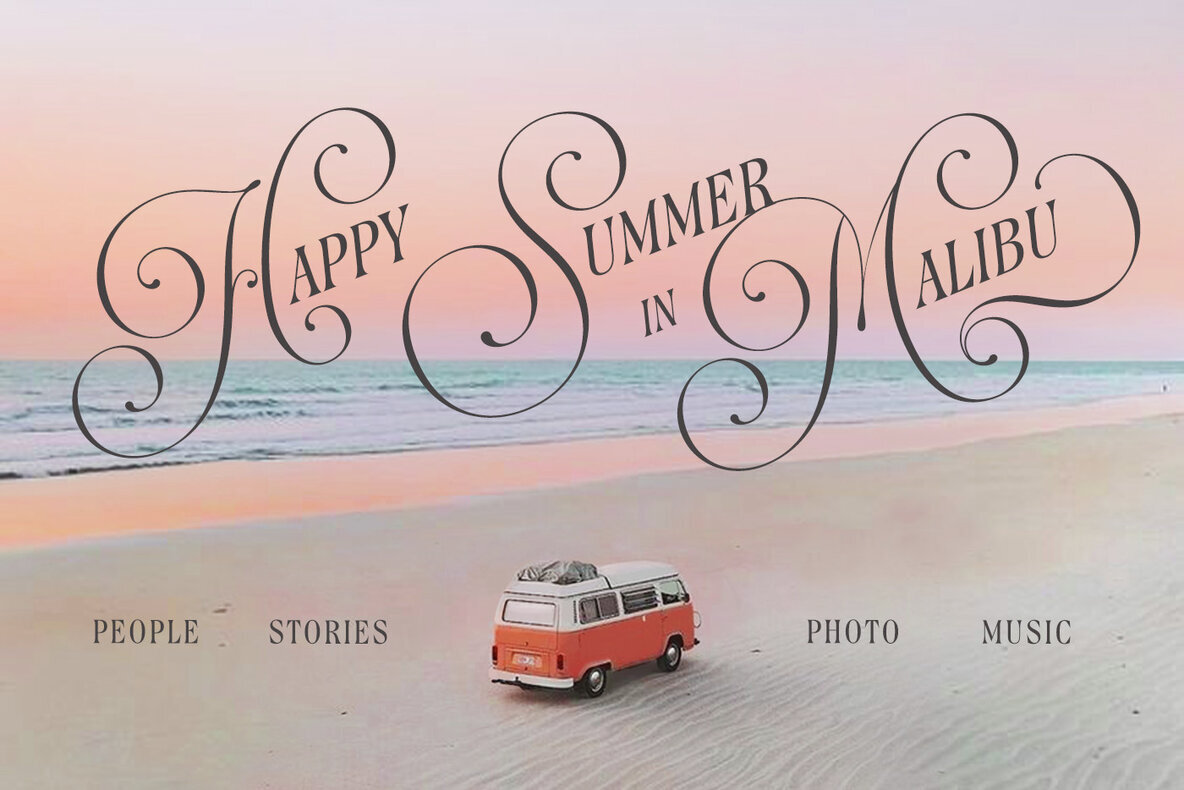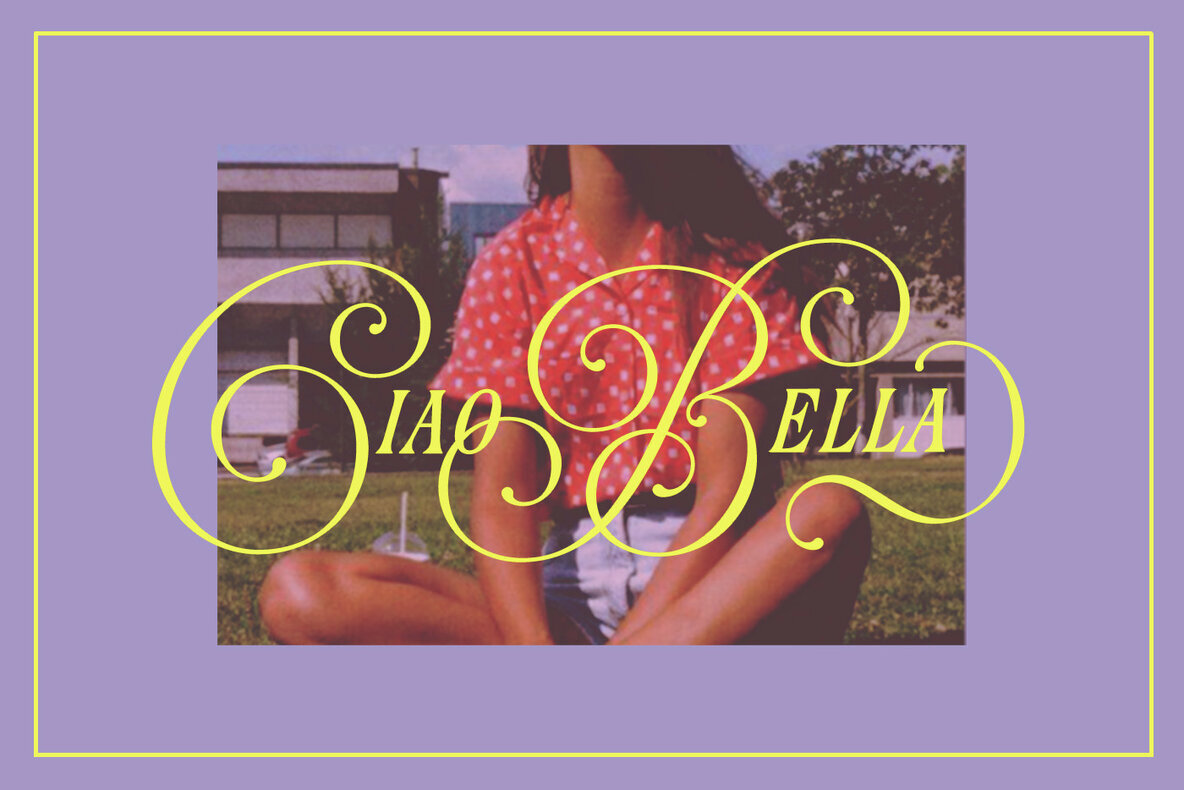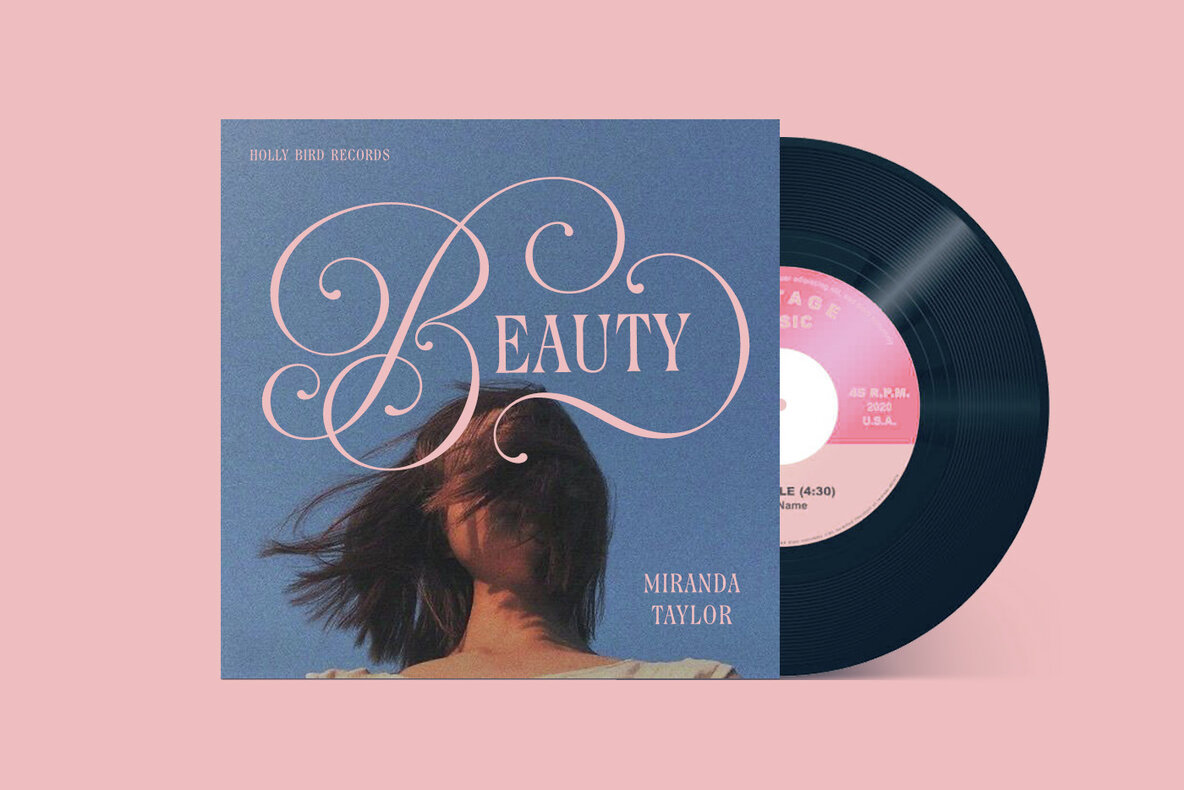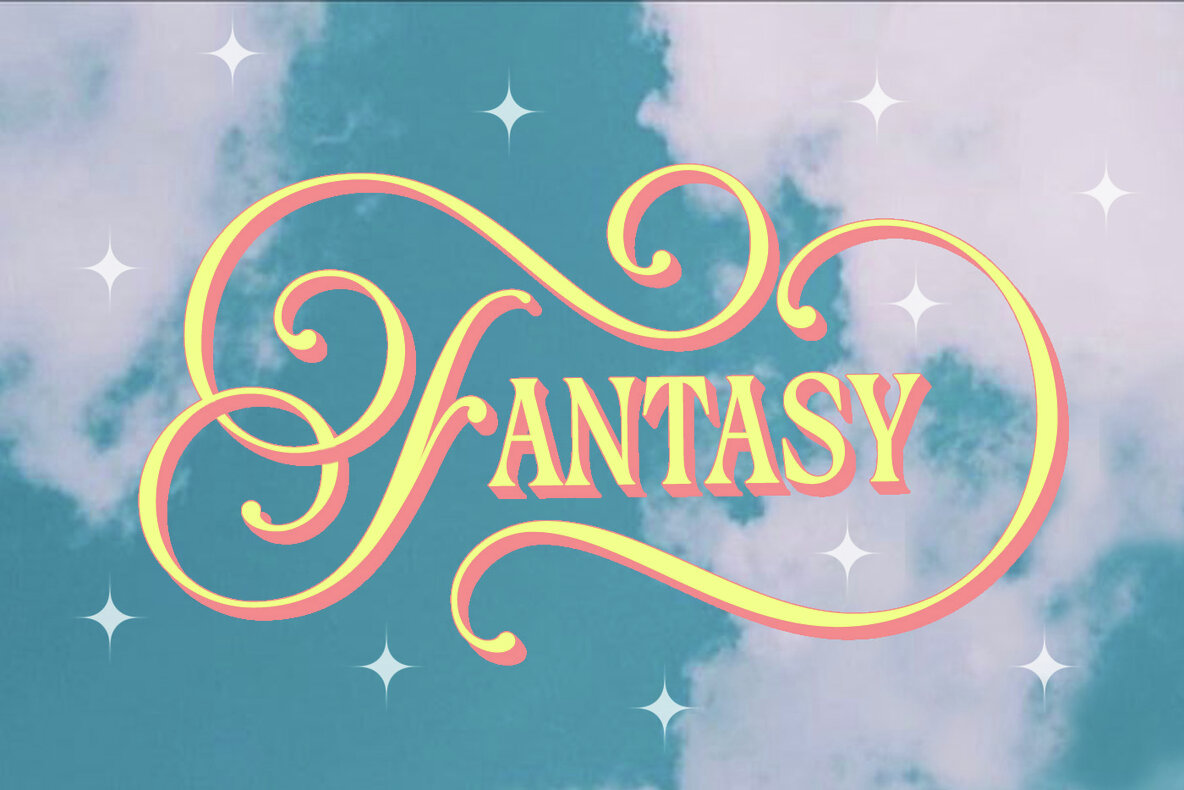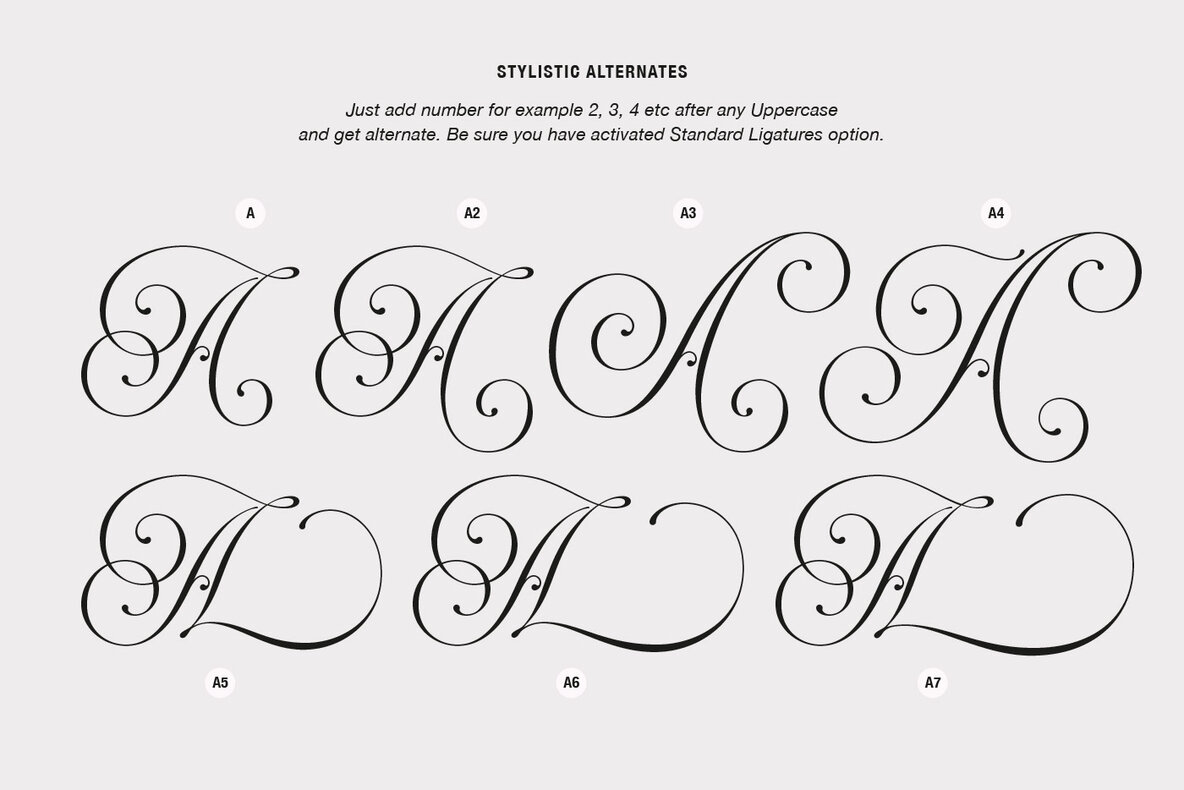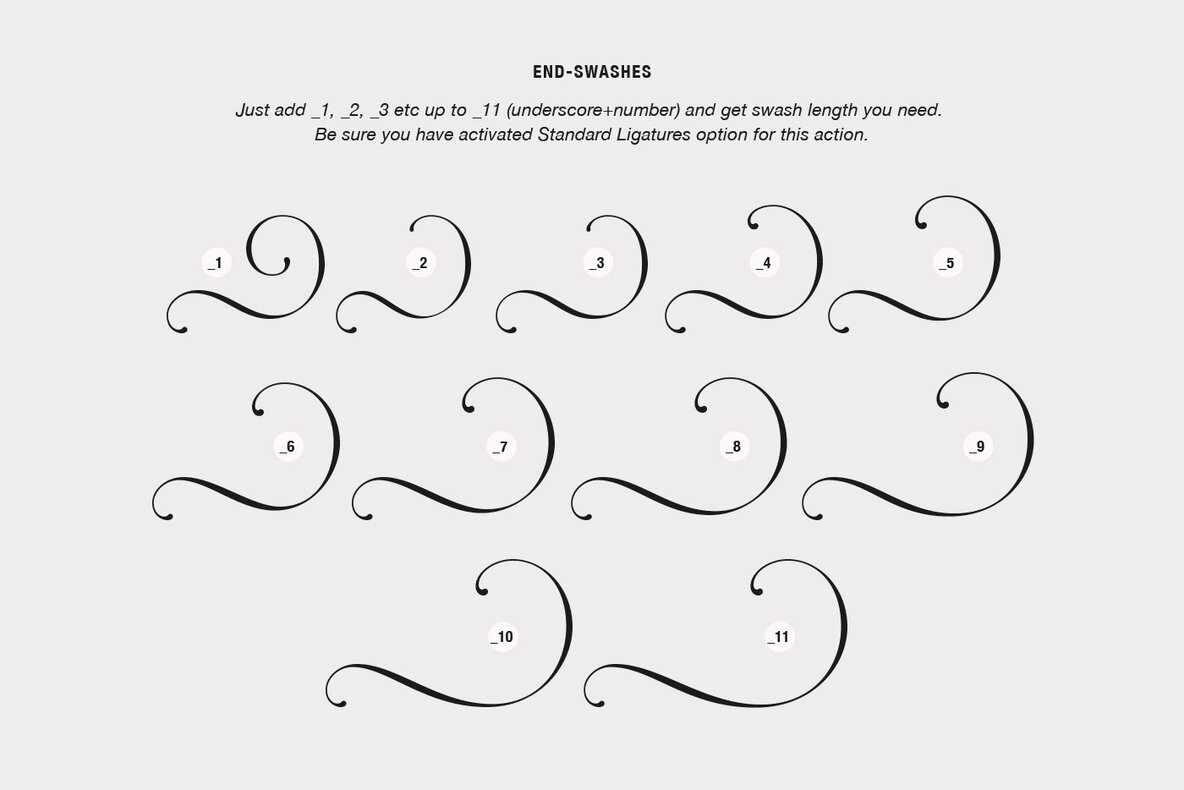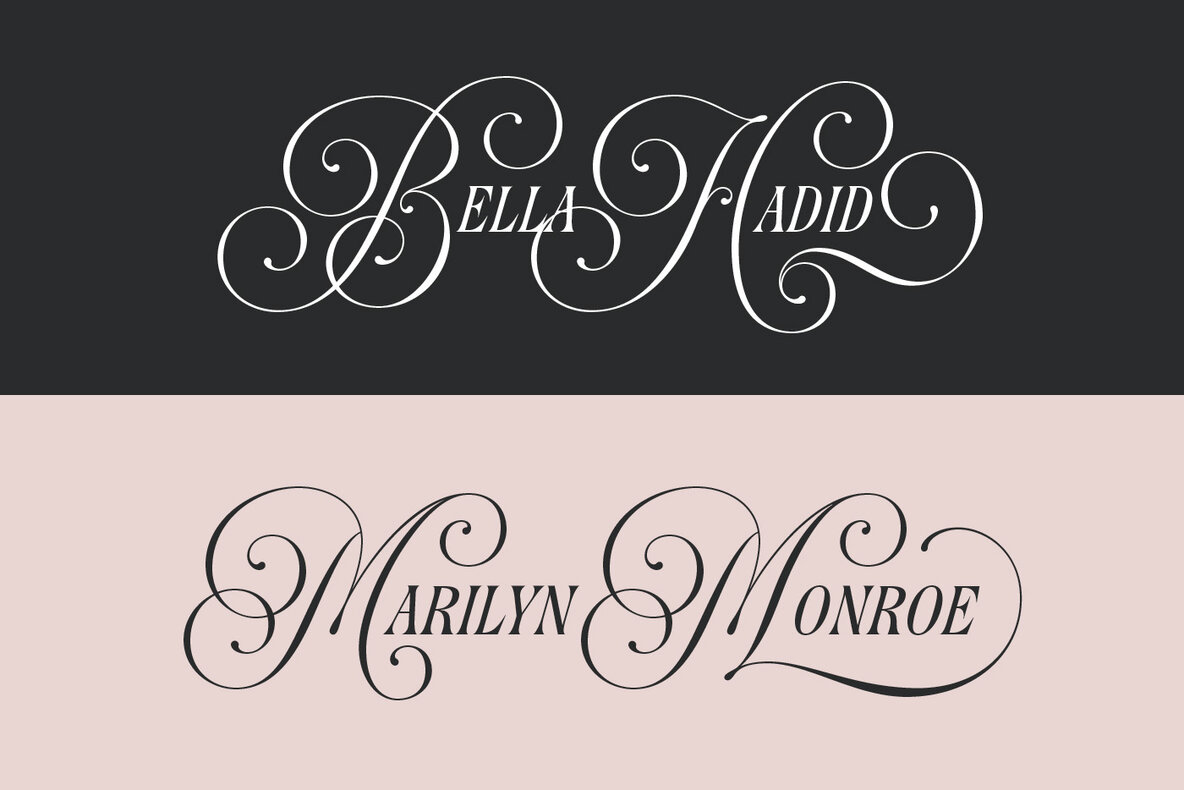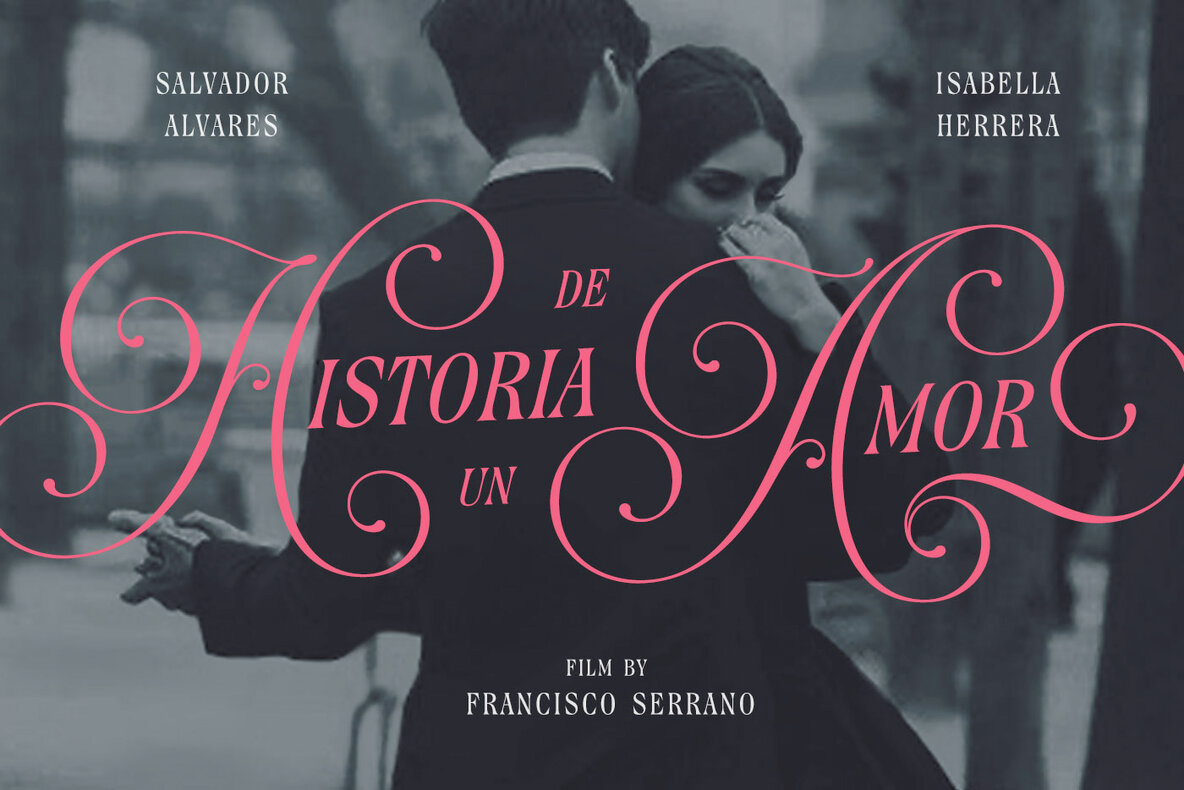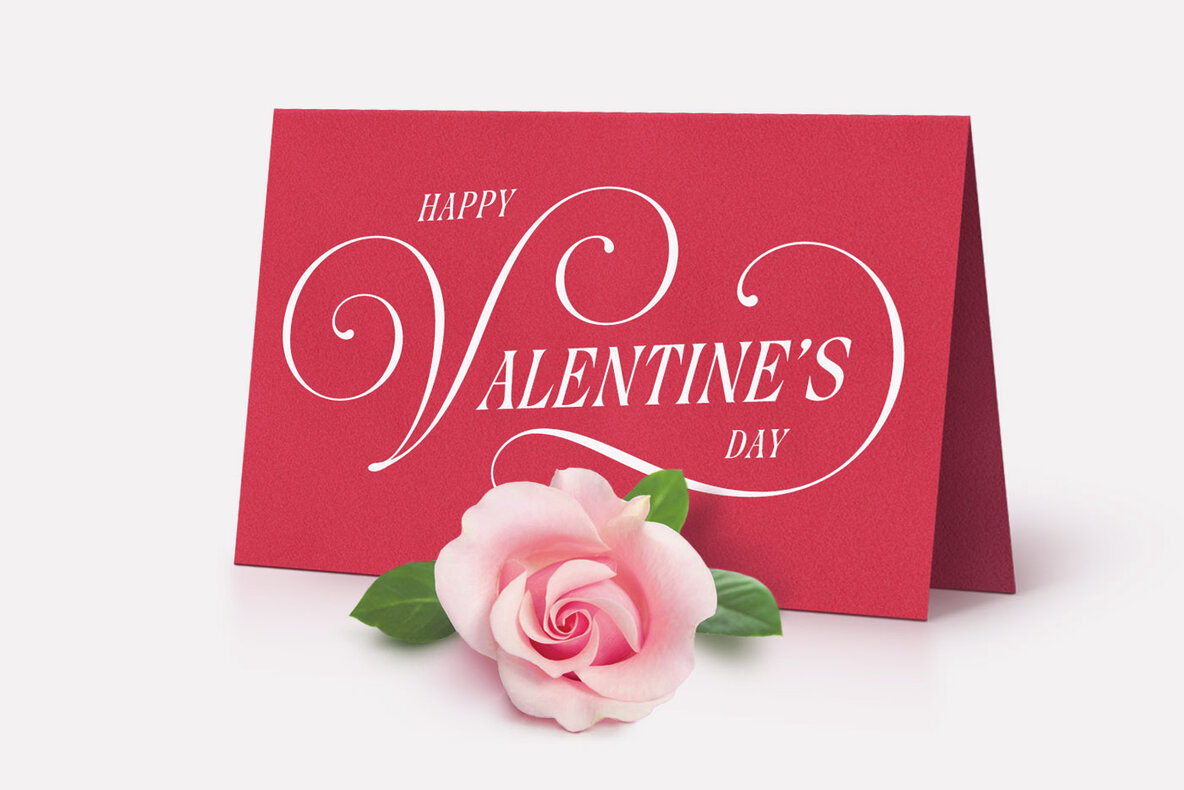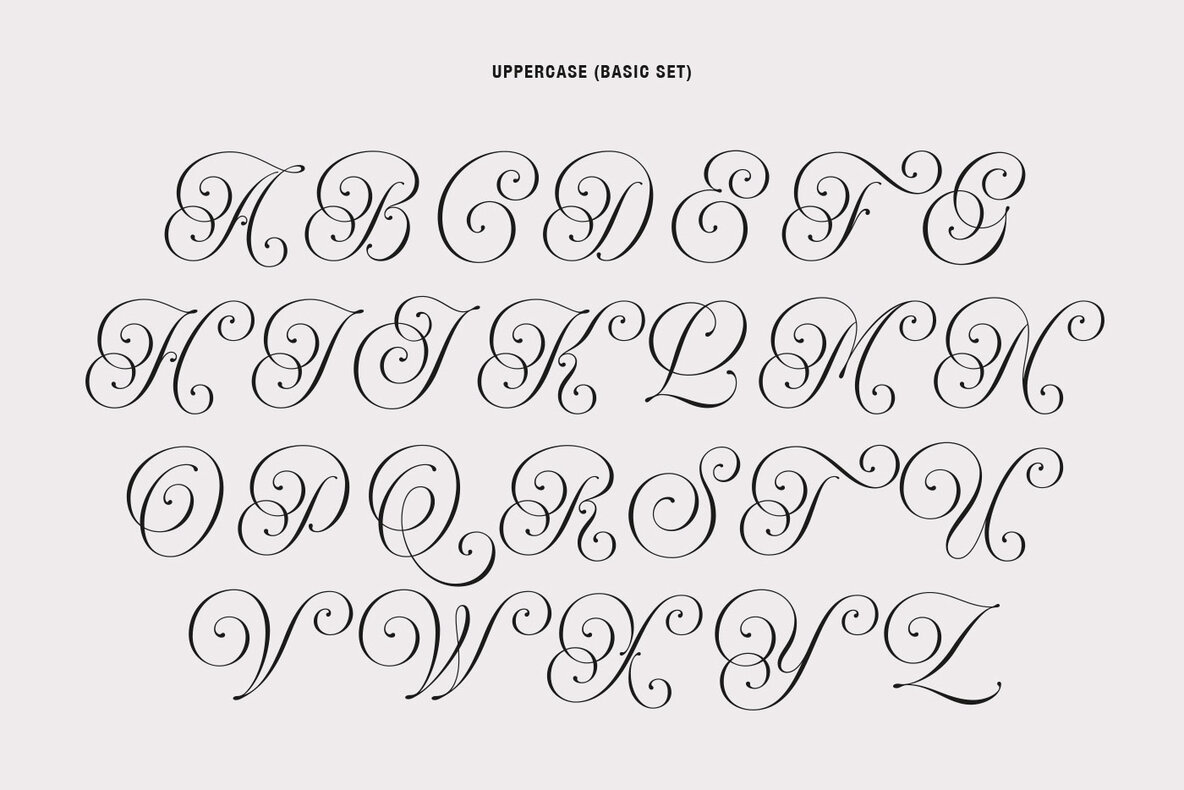
Rocksane Font
Rocksane Display This is a modern hybrid font with fantastic decorative uppercase and strong serif lowercase for impressive and powerful look. This typeface works fine in big sizes and more suits for example in short tittles, logotypes, names, movie posters, books and music album covers. Special Features Rocksane includes 84 beautiful uppercase alternates except of basic set. You can easy get it with special combination like A1, A2, A3 etc. (This hot keys works with activated Standard Ligatures option). In addition, there are 11 End-swashes which harmoniously underline the words. You can quickly get it by the same way with combination like _1, _2, _3 up to _11 (underscore+number). This features works fine in Adobe Photoshop or Illustrator. Multilingual Support You can use Rocksane for following languages: Danish, Dutch, English, Estonian, Faroese, Finnish, French, German, Hungarian, Icelandic, Italian, Norwegian, Polish, Portuguese, Slovene, Spanish, Swedish, Turkish.